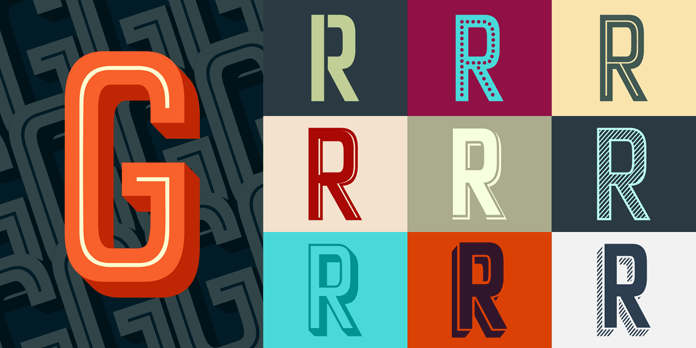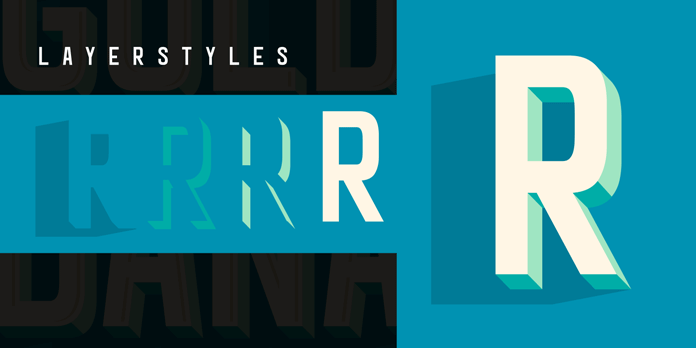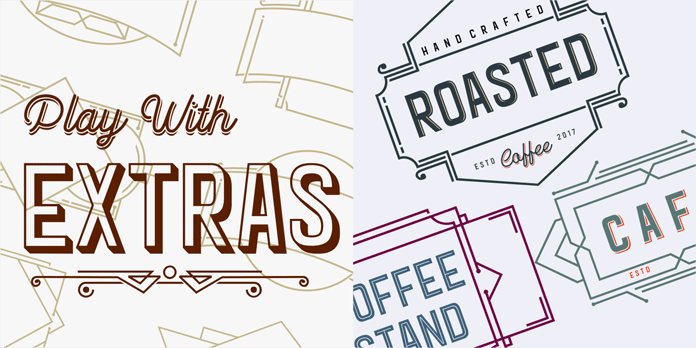
Goldana, a multi-layered type collection with Art Deco-inspired sans and script fonts published by foundry Seventh Imperium.
Designed by Cucu Supriyadi of foundry Seventh Imperium, Goldana is a multiple classification font family that includes 24 styles. The different layered sans and script typefaces are inspired by the elegance of Art Deco and good old signage of the 1920s and 1930s. The different layering styles include a base layer, as well as an, extrude and extrude shadow font to let you create super stylish dimensional typography. Most of the numerous styles can be combined in different ways, while others work great as stand-alone display sans or script fonts. Please note, the complete family is currently on sale on Fontspring (only for a very limited time), just follow the link below.
The diverse script styles are equipped with some useful OpenType features to give you more typographic scope. In addition, the collection includes a great set of dingbats, which can be used to create striking badges and different designs with a nice vintage touch. With Goldana, type designer Cucu Supriyadi has developed a family that offers plenty of options for typography geeks and graphic designers. To know more about this outstanding Art Deco inspired layered type collection, please follow the link below.